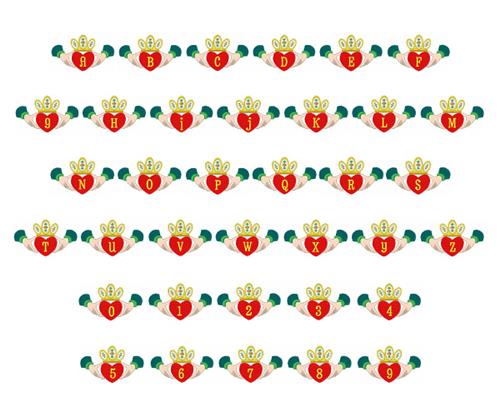
Claddagh Font Embroidery Font - Decorative Style with Hearts and Floral Motifs - Home Format - PES, DST & 11 formats by Embroidery Patterns and other embroidery fonts available at EmbroideryDesigns.com.